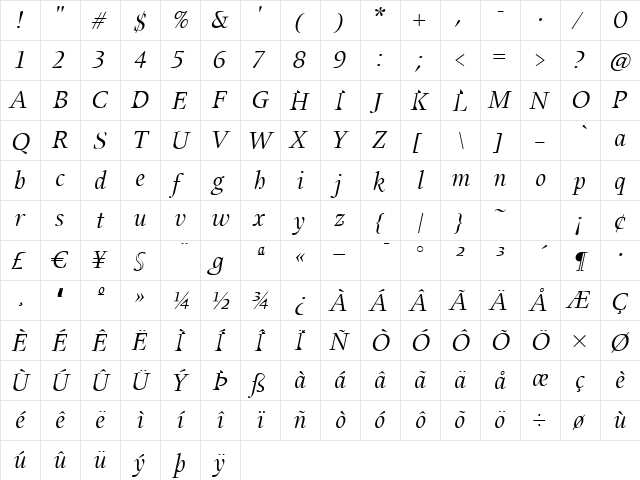
UnionItalic Regular
Design Context for UnionItalic Typeface
UnionItalic takes a measured approach to typography — its balanced proportions and neutral character make it a reliable workhorse for both digital and print work. The dynamic lean of this cut emphasises speed and emphasis in any layout.
Pro Tip: Use UnionItalic for emphasis, pull quotes, and subheadings where its slanted energy can add rhythm to the layout.